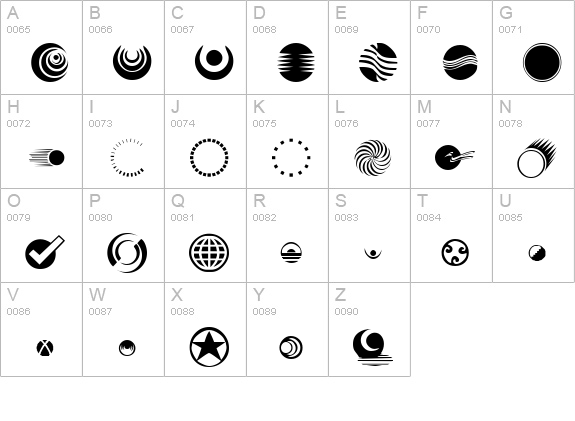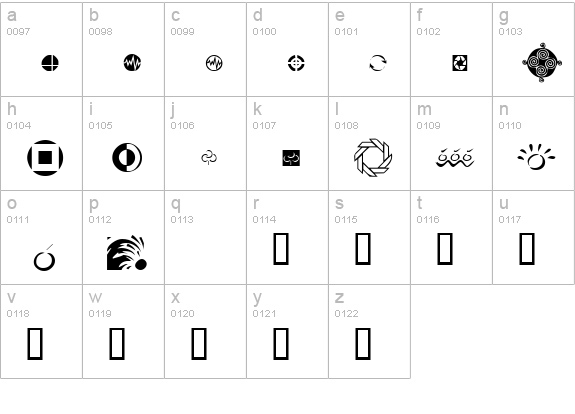
KR A Round Font Details
KR A Round is a modern and stylish font that exudes a sense of sophistication and elegance. Its rounded edges and clean lines make it perfect for a wide range of design projects, from logos and branding to packaging and advertising. This versatile font is sure to add a touch of class to any project. Best of all, KR A Round is available for free download at FontsMarket.com. So whether you're a professional designer looking for a new font to add to your collection, or a hobbyist looking to spruce up your DIY projects, KR A Round is the perfect choice. Don't miss out on this fantastic opportunity to enhance your designs with this stunning font!